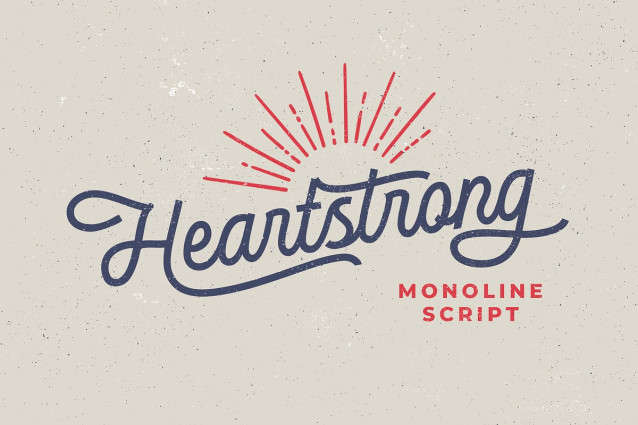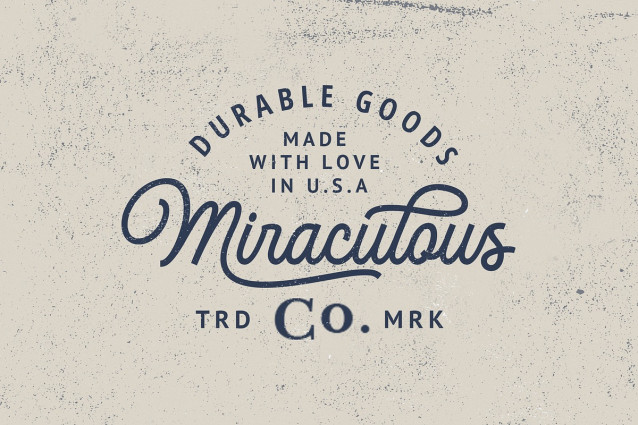
Heartstrong Script Font
Heartstrong Script Font is a monoline script and carefully crafted with personality. It easily for creating the traditional style logos, labels, package designs, lettering for t-shirts, and many others. Mix and match Heartstrong with a bunch of alternative characters to fit your project.